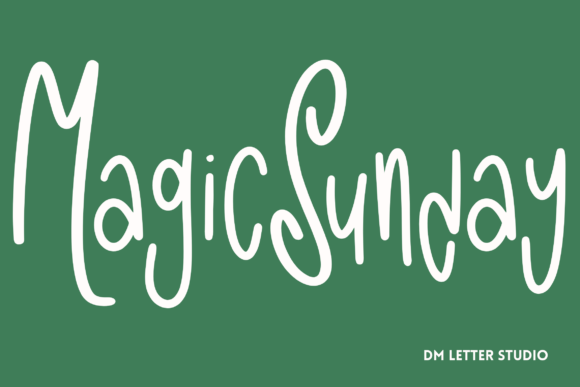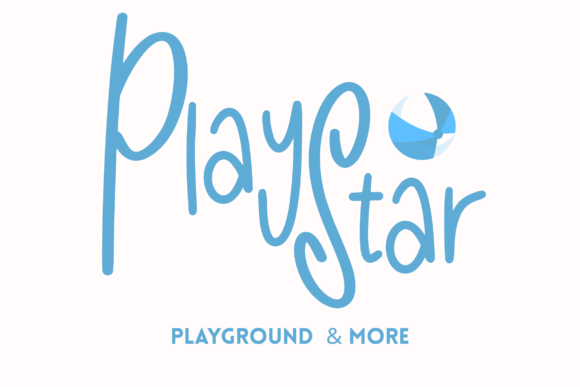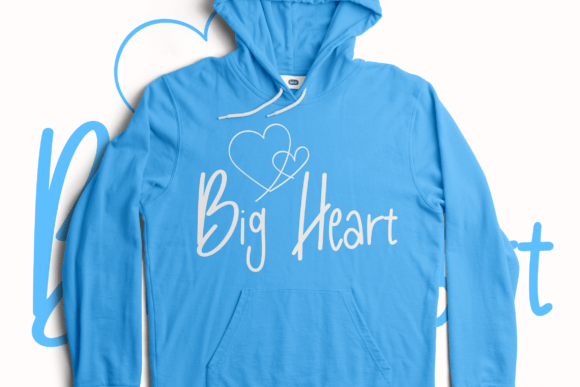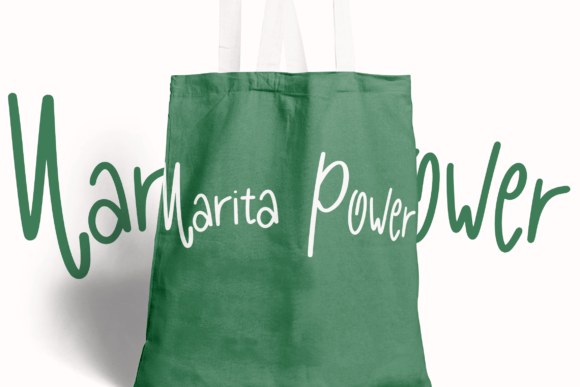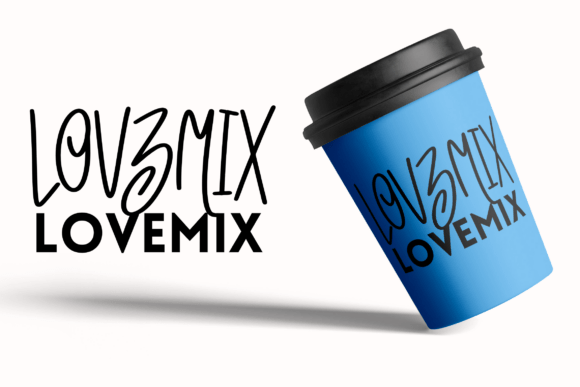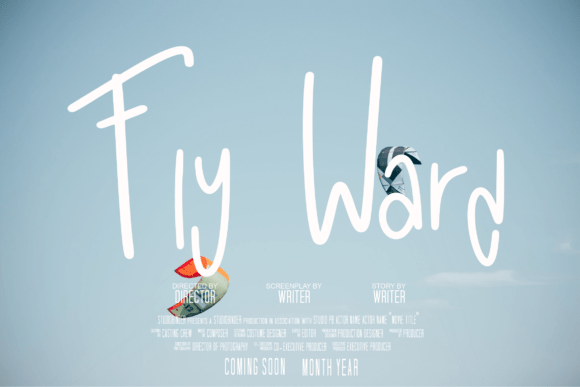
Introduction to Glowy Mood Font Font
Fonts play a crucial role in design, and the Glowy Mood Font font is a typeface that brings both character and versatility to any project. Whether you’re working on a branding project, a website, or a print design, the Glowy Mood Font font offers a unique style that can elevate your work.
| 📌 Font Name | Glowy Mood Font |
| 👤 Author | dmletter31 |
Introducing Glowy Mood, a charming handwritten font that blends modern elegance with a playful, premium feel.
With soft curves and a free-flowing script style, Glowy Mood is perfect for luxury logo design, modern food packaging, and stylish brand identities This typeface combines the warmth of hand lettering with a luxury bold presence, making it a standout choice for elegant product branding, upscale food labels, and creative logos that demand personality and sophistication.
Key Features of Glowy Mood Font Font
Why Choose Glowy Mood Font Font?
The Glowy Mood Font font is more than just a typeface – it’s a design tool that helps you communicate your message with style and clarity. Its unique character set and versatile design make it suitable for a wide range of applications, from elegant invitations to bold headlines.
With its carefully crafted letterforms and balanced proportions, the Glowy Mood Font font ensures readability and visual appeal across all mediums.
What makes Glowy Mood Font font special?
The Glowy Mood Font font stands out with its unique design, exceptional readability, and versatility across various design applications.